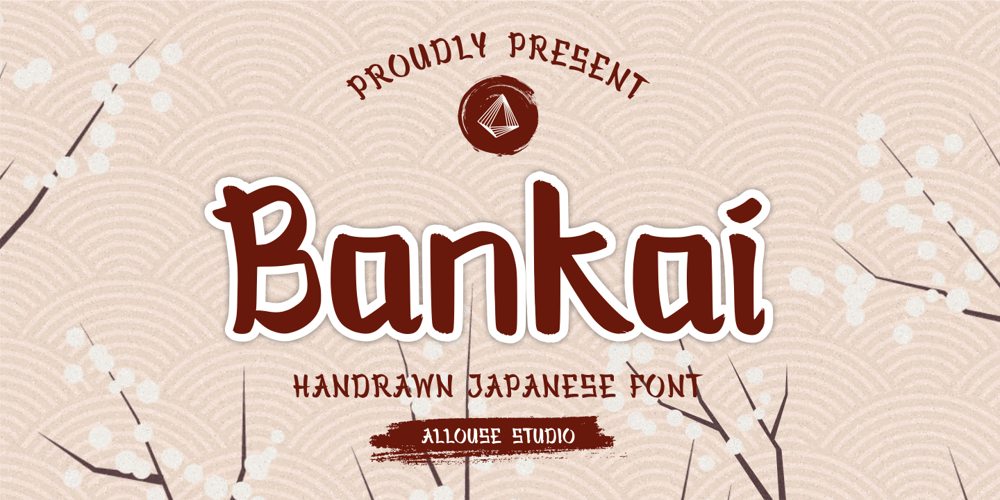
Bankai
Bankai font
Bankai Font Family was designed by Fachrizal Yusuf and published by Allouse Studio. Bankai contains 1 styles and family package options. Bankai a Handdrawn Japanese Font.Bankai is perfect for any tittles, logo, product packaging, branding project, megazine, social media, wedding, or just used to express words above the background.Bankai also come with Multi-Lingual Support.Enjoy the font, feel free to comment or feedback, send me PM or email. Thank You!